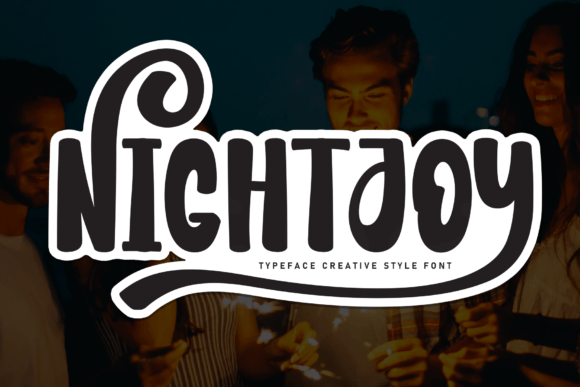
Introducing Nightjoy Font, the perfect companion for all your fashion design needs! Created by the talented Roronoa Zoro, this delightful script font exudes a sweet and friendly charm that will instantly captivate your audience. Whether you're working on a clothing line, a fashion blog, or any other creative project, Nightjoy is here to elevate your designs to new heights.
With its natural and unique style, Nightjoy Font adds a touch of elegance and sophistication to any piece. Its flowing curves and handwritten aesthetic bring a sense of authenticity and personalization, making your designs truly stand out. The versatility of this font knows no bounds, allowing you to experiment and create without any limitations.
Imagine the possibilities! Nightjoy Font effortlessly complements a wide range of design themes, from modern and trendy to vintage and timeless. Use it to create stunning logos, branding materials, social media posts, or even beautiful typography for your website. The options are endless, and with Nightjoy, your imagination is the only limit.
But what truly sets Nightjoy apart is its ability to evoke emotions and connect with your audience on a deeper level. Its captivating charm brings a sense of joy, warmth, and playfulness to your designs, instantly grabbing attention and leaving a lasting impression. It's the perfect choice when you want to create a memorable and engaging experience for your viewers.
So why wait? Take your fashion designs to the next level with Nightjoy Font. Let its natural elegance and captivating charm elevate your creations and leave a lasting impact. Your audience will be drawn to the exquisite beauty of this handwritten script font, and you'll be one step closer to achieving your creative vision.